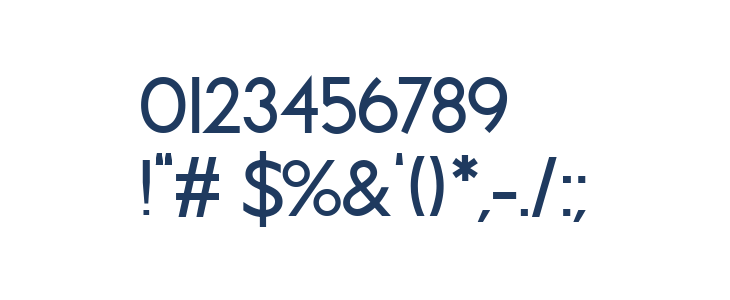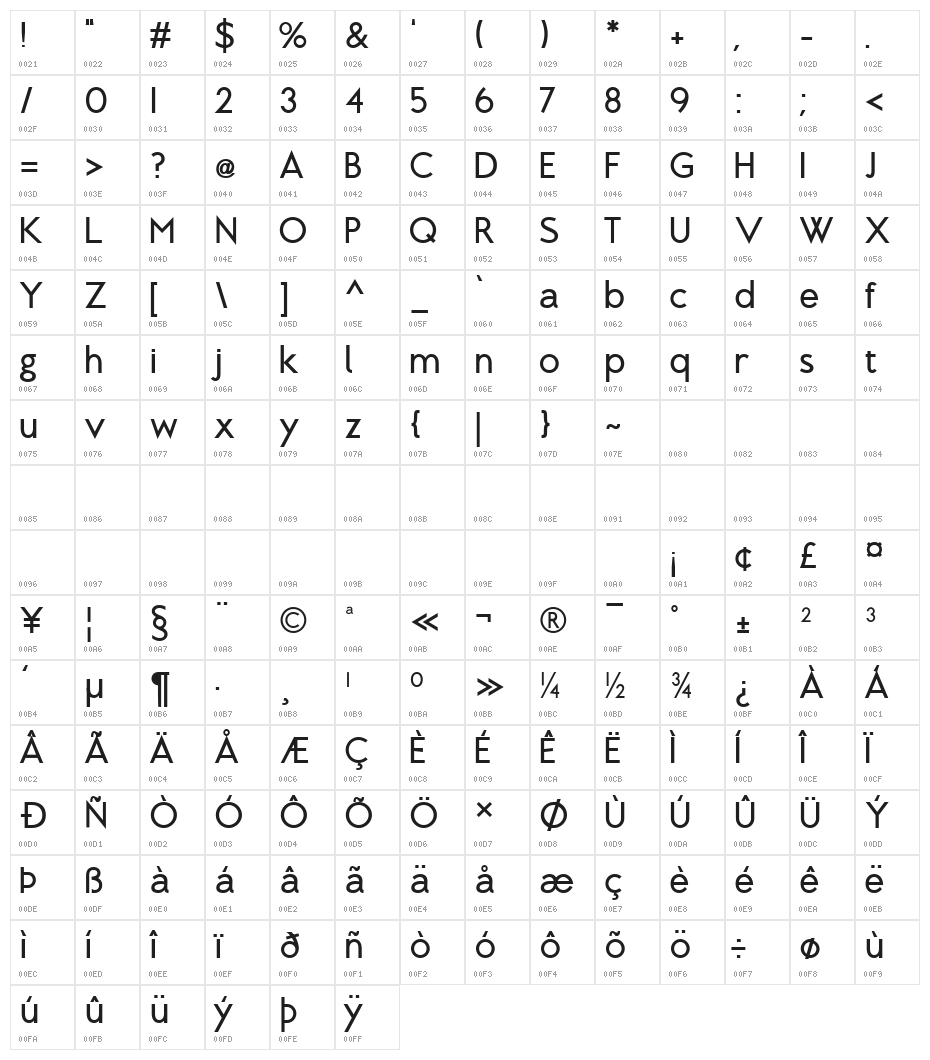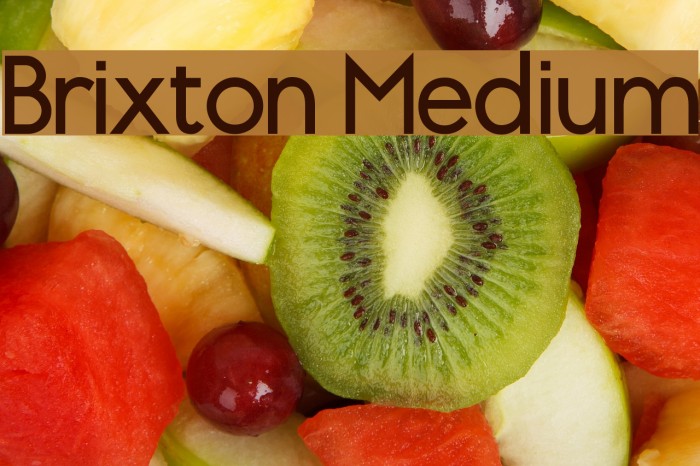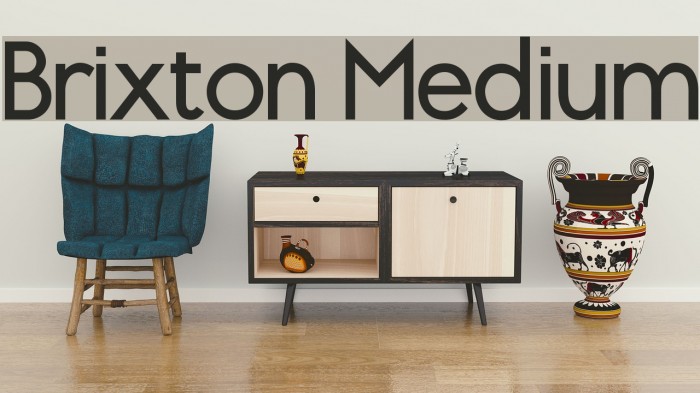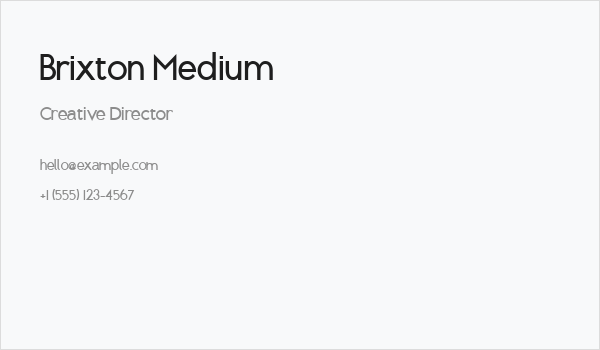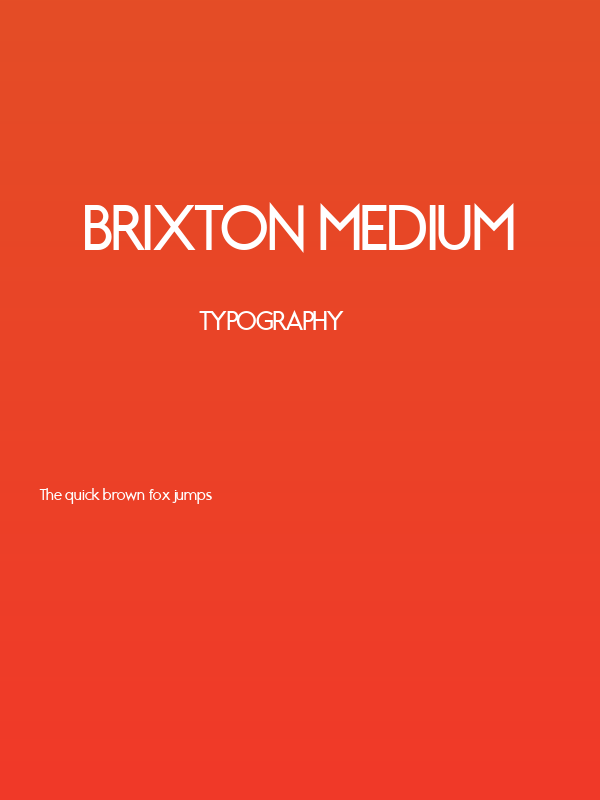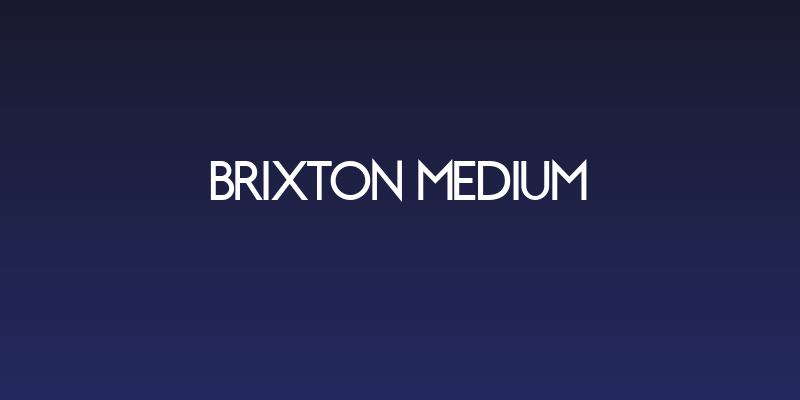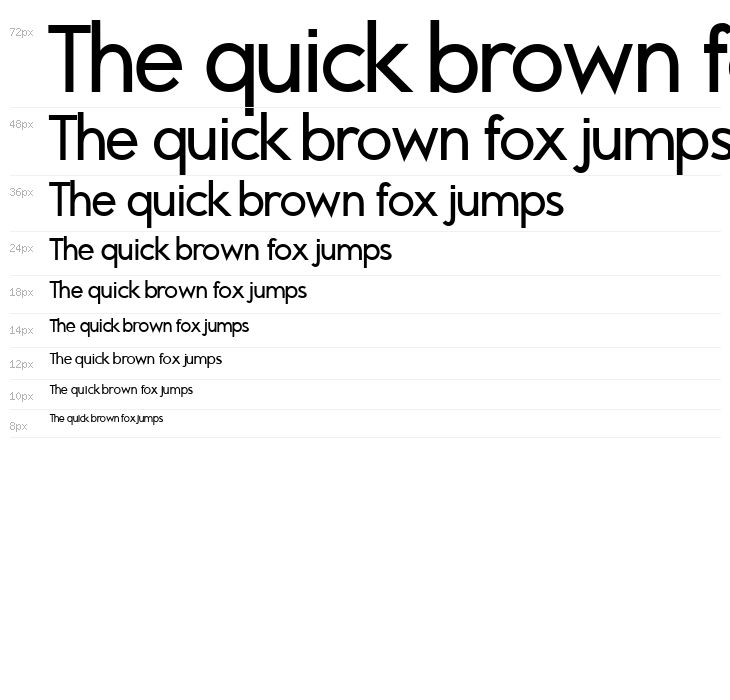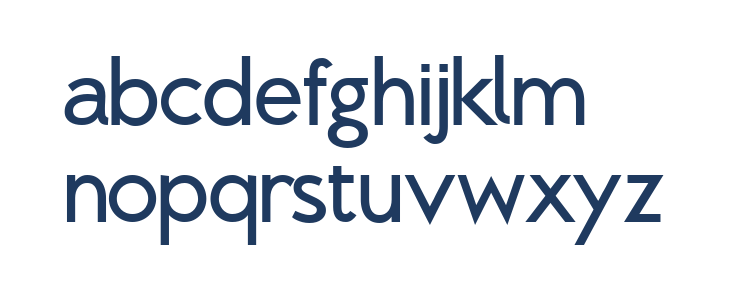
Brixton Medium Font
Brixton Medium Description
This font features a clean and modern sans-serif design with a geometric structure. The characters are well-balanced with a consistent stroke width, providing a harmonious and professional appearance. The uppercase letters are bold and impactful, while the lowercase letters maintain a friendly and approachable feel. The numerals are clear and legible, making them suitable for various applications. Special characters are included, offering versatility for different design needs. The overall style is contemporary, making it ideal for modern branding and digital interfaces.